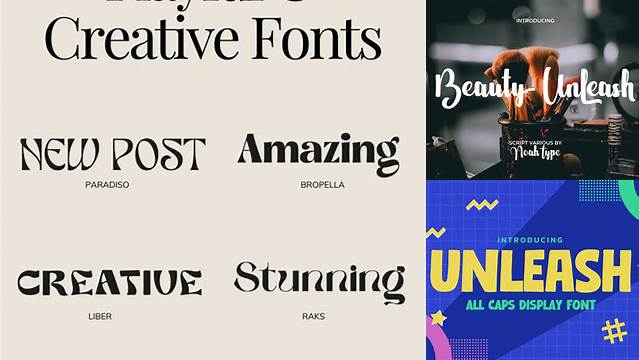
Creative Font Ideas: Unleash Your Lettering Style
Hey guys! Ever feel like your text is just…blah? Like it's missing that oomph, that spark? Well, the secret weapon is right here: fonts! It's not just about picking any font; it's about finding the perfect font that screams your message. Whether you're designing a logo, crafting an invitation, or just want to spice up your social media posts, the right fonts letters can make all the difference. Let’s dive into some font letters ideas and unleash your inner lettering artist!
1. Exploring Serif Fonts for Classic Designs
Okay, let's talk serifs. These are the fonts letters with those little feet, or tails, at the end of each stroke. Think Times New Roman, Garamond, or Georgia. Serif fonts give off a classic, traditional, and elegant vibe. They're perfect for formal documents, books, and anything that needs a touch of sophistication. But don't think they're just for serious stuff! You can use them in creative ways too. Imagine pairing a bold serif for a headline with a simpler sans-serif for the body text. The contrast can be super eye-catching! Experiment with different weights and sizes to see how you can play with the classic serif fonts style and add your own unique twist. Remember, the goal is to find a font that not only looks good but also communicates the right message for your project. You could even try using a decorative serif font for a wedding invitation to give it that extra touch of elegance. It's all about finding the balance between readability and visual appeal. The possibilities with fonts letters are endless, so don't be afraid to explore and have fun with it!
2. The Modern Appeal of Sans-Serif Fonts
Now, let's switch gears and talk about sans-serif fonts. These fonts letters are the cool kids on the block – sleek, modern, and minimalist. Think Arial, Helvetica, or Open Sans. They don't have those little feet like serifs, giving them a cleaner, more contemporary look. Sans-serif fonts are super versatile and work well for everything from websites to posters to logos. They’re especially great for headlines and shorter text blocks because of their readability. You'll often see them used in tech companies' branding because they convey a sense of innovation and simplicity. But that doesn't mean they're boring! You can find tons of sans-serif fonts with different weights, widths, and styles to match your creative vision. Try pairing a bold sans-serif for a heading with a lighter weight for the body text to create a visual hierarchy. Or, use a condensed sans-serif for a modern, impactful look. Don't be afraid to mix and match! Experimenting with different sans-serif fonts combinations is key to finding the perfect vibe for your project. Just remember, readability is crucial, so choose a font that's easy on the eyes, no matter how stylish it is. Have fun exploring these fonts letters!
3. Script Fonts: Adding Elegance and Personality
If you're looking to add a touch of elegance and personality, script fonts are your go-to! These fonts letters mimic handwriting, giving your designs a personal and sophisticated feel. Think calligraphy-style fonts, cursive scripts, and everything in between. They’re perfect for invitations, logos, headings, and anything that needs a little bit of flair. However, a word of caution: script fonts can be tricky to use. They're not always the most readable in large blocks of text, so it's best to use them sparingly. Think of them as a decorative element, rather than your main body text. Pairing a script font with a simpler serif or sans-serif font can create a beautiful contrast and make your design pop. Imagine a wedding invitation with elegant script fonts for the names and a classic serif for the details. Stunning, right? When choosing script fonts, consider the overall tone you're going for. Some script fonts are formal and elegant, while others are more playful and whimsical. There are so many different styles of fonts letters in the script category, so take your time to find the perfect one for your project. Remember, readability is key, so make sure your chosen script font is easy to decipher, especially in smaller sizes. Explore, experiment, and let your creativity flow with script fonts!
4. Display Fonts: Making a Bold Statement
Alright, let’s talk about making a statement! Display fonts are your secret weapon for grabbing attention and adding serious personality to your designs. These fonts letters are designed to be eye-catching and unique, often with bold, quirky, or decorative elements. Think of them as the rockstars of the font world! They’re perfect for headlines, posters, logos, and anything that needs to stand out from the crowd. But, like script fonts, display fonts are best used sparingly. They’re not ideal for large blocks of text because they can be hard to read. Instead, use them to highlight key words or phrases and create a visual impact. When choosing display fonts, think about the message you want to convey. A vintage-inspired display font might be perfect for a retro-themed poster, while a futuristic display font would be great for a tech company’s logo. The key is to find a display font that matches the tone and style of your project. There are so many amazing fonts letters in the display font category, from bold and blocky to whimsical and playful. Have fun experimenting and finding the perfect one to make your design shine. Just remember, the goal is to grab attention and make a memorable impression. Go bold, go big, and unleash the power of display fonts!
5. Handwritten Fonts: A Personal Touch
Want to add a personal touch to your designs? Handwritten fonts are the way to go! These fonts letters mimic the look and feel of actual handwriting, giving your projects a warm, authentic, and intimate vibe. They’re perfect for invitations, greeting cards, blog posts, and anything that needs a human touch. Handwritten fonts can range from elegant calligraphy to casual scribbles, so there's a style for every occasion. They're a fantastic way to add character and personality to your work. However, like other decorative fonts, handwritten fonts should be used sparingly. They can be tricky to read in large blocks of text, so it's best to use them for headings, quotes, or short phrases. Pair a handwritten font with a simpler font, like a sans-serif, for the body text to ensure readability. Imagine a thank-you note with a heartfelt message written in a beautiful handwritten font. Or, a blog post with a personal quote highlighted in a casual handwritten font. When choosing handwritten fonts, consider the overall tone and style of your project. A formal handwritten font might be perfect for a wedding invitation, while a playful handwritten font would be great for a children's book. There are so many different styles of fonts letters in the handwritten font category, so take your time to find the perfect one to express your message. Explore, experiment, and add a personal touch with handwritten fonts!
6. Mixing and Matching Fonts for Visual Harmony
Okay, guys, let's get into the real fun: mixing and matching fonts letters! This is where you can really unleash your creativity and create stunning visual harmony. But it's also where things can get a little tricky. The key is to find fonts that complement each other, creating a balanced and cohesive design. A good rule of thumb is to pair a serif font with a sans-serif font. The contrast between the classic serif and the modern sans-serif can create a dynamic and eye-catching look. For example, you could pair a bold serif font for your headline with a clean sans-serif font for the body text. This creates a clear visual hierarchy and makes your design easy to read. Another option is to use different weights and styles within the same font family. For example, you could use a bold version of a font for the headline and a regular version for the body text. This creates a subtle but effective contrast and keeps your design consistent. When mixing and matching fonts letters, it's important to consider the overall tone and style of your project. If you're creating a formal design, you'll want to choose fonts that convey elegance and sophistication. If you're creating a playful design, you can be more adventurous with your font choices. Don't be afraid to experiment! Try different combinations and see what works best for your project. Just remember to keep it readable and visually appealing. Have fun mixing and matching fonts letters and creating your own unique style!
7. Font Pairing Strategies for Beginners
Feeling a little overwhelmed by the idea of mixing and matching fonts letters? Don't worry, we've got you covered! Here are a few font pairing strategies to get you started. First, try the classic combo: a serif font for headings and a sans-serif font for body text. This is a foolproof way to create a clean and readable design. For example, you could pair a font like Times New Roman (serif) with Arial (sans-serif). Second, use fonts from the same font family. Most font families come with different weights and styles, like bold, italic, and light. Using variations within the same family creates a cohesive and professional look. For instance, you could use Open Sans Bold for your headings and Open Sans Regular for your body text. Third, look for contrasting fonts. Pairing fonts with distinct personalities can create a dynamic and eye-catching design. Think about pairing a bold display font with a simple sans-serif font, or an elegant script font with a classic serif. Just make sure the fonts complement each other, rather than clash. Fourth, consider the mood and tone of your project. If you're designing for a formal event, choose sophisticated fonts. If you're creating a fun and playful design, you can be more adventurous with your font choices. Remember, the goal is to create a visually appealing and readable design. Start with these font pairing strategies, experiment with different combinations, and you'll be mixing and matching fonts letters like a pro in no time!
8. The Psychology of Fonts: Conveying Emotions
Did you know that fonts letters can actually evoke emotions? It's true! The psychology of fonts is a fascinating field that explores how different fonts can influence our feelings and perceptions. Serif fonts, with their classic and traditional look, often convey feelings of trustworthiness, stability, and authority. That's why you see them used in formal documents and corporate branding. Sans-serif fonts, on the other hand, have a more modern and minimalist feel, which can evoke feelings of innovation, clarity, and simplicity. They're popular in tech companies and contemporary designs. Script fonts, with their handwritten style, can convey elegance, creativity, and personality. They're perfect for adding a personal touch to invitations and greetings. Display fonts, with their bold and unique designs, are all about grabbing attention and making a statement. They can evoke a wide range of emotions, depending on their style, from excitement and playfulness to sophistication and elegance. When choosing fonts, it's important to consider the message you want to convey and the emotions you want to evoke in your audience. A playful font might be perfect for a children's book, but it wouldn't be appropriate for a legal document. By understanding the psychology of fonts, you can make more informed design choices and create fonts letters that truly resonate with your audience. Think about the feeling you want to create, and choose your fonts accordingly. It's all about communicating effectively and making an impact!
9. Typography Tips for Legibility and Readability
Alright, let's talk about the nitty-gritty: typography tips for legibility and readability. Because, let's face it, even the most beautiful fonts letters are useless if no one can read them! Legibility refers to how easy it is to distinguish individual letters, while readability is about how easy it is to read text in large blocks. Both are crucial for effective communication. One key tip is to choose fonts that are designed for readability. Sans-serif fonts are often a good choice for body text because their clean lines make them easy on the eyes. However, some serif fonts, like Georgia and Garamond, are also very readable. Another important factor is font size. Make sure your font is large enough to read comfortably, especially in body text. A general guideline is to use a font size of at least 12 points for print and 16 pixels for web. Line height, also known as leading, is the vertical space between lines of text. Adjusting the line height can significantly improve readability. A good rule of thumb is to set the line height to about 1.5 times the font size. Letter spacing, or tracking, is the horizontal space between letters. Tight letter spacing can make text look cramped and difficult to read, while loose letter spacing can make it feel disjointed. Adjust the letter spacing as needed to create a balanced and readable look. Finally, contrast is key. Make sure there's enough contrast between your text color and background color. Dark text on a light background is generally the easiest to read. By following these typography tips, you can ensure that your fonts letters are not only beautiful but also highly legible and readable. Remember, communication is the goal, so make it easy for your audience to understand your message!
10. Font Size Matters: Choosing the Right Size
Let's dive into a crucial aspect of typography: font size matters! Choosing the right font size can make or break your design. It's not just about making your text visible; it's about ensuring readability, creating hierarchy, and conveying the right tone. A font that's too small will strain the eyes and make your text difficult to read, while a font that's too large can look overwhelming and unprofessional. So, how do you choose the right size? For body text, a general guideline is to use a font size between 10 and 12 points for print, and 16 to 18 pixels for web. This range provides a good balance between readability and visual appeal. Headings, of course, should be larger than body text to create a clear visual hierarchy. You can use a variety of font sizes for headings, depending on their importance. For example, a main heading (H1) might be 24 to 36 points, while subheadings (H2, H3) could be 18 to 24 points. The key is to create a visual distinction between headings and body text, making it easy for readers to scan your content. When choosing font sizes, consider your audience and the context. If you're designing for an older audience, you might want to use larger font sizes to improve readability. If you're designing for a mobile device, you'll need to make sure your fonts letters are large enough to read on a smaller screen. Don't be afraid to experiment with different font sizes and see what works best for your project. Remember, the goal is to create a comfortable and engaging reading experience. So, pay attention to font size and make your text shine!
11. Line Height and Spacing for Readability
Okay, guys, let's talk about line height and spacing – the unsung heroes of readability! These elements often get overlooked, but they play a crucial role in how easily your text flows and how comfortable it is to read. Line height, also known as leading, is the vertical space between lines of text. Too little line height can make your text look cramped and difficult to follow, while too much line height can make it feel disjointed. So, what's the sweet spot? A general guideline is to set the line height to about 1.5 times the font size. For example, if you're using a 12-point font, a line height of 18 points would be a good starting point. However, this is just a guideline. You may need to adjust the line height depending on the font, the line length, and the overall design. Shorter line lengths often benefit from tighter line height, while longer line lengths may need more spacing. Spacing also refers to the space between letters and words, known as tracking and kerning. Tracking adjusts the overall spacing of a block of text, while kerning adjusts the spacing between specific pairs of letters. Both can impact readability. Tight tracking can make text look crowded, while loose tracking can make it feel disconnected. Kerning is particularly important for certain letter combinations, like